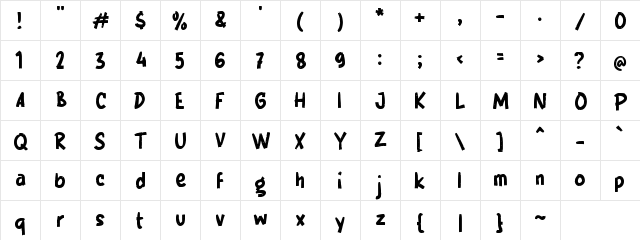
g Gradeo Regular Free Font
g Gradeo Regular
Designer: Wahyu Eka Prasetya
Design Context for g Gradeo
g Gradeo is a composed and adaptable typeface that performs quietly and consistently across a wide range of design contexts.